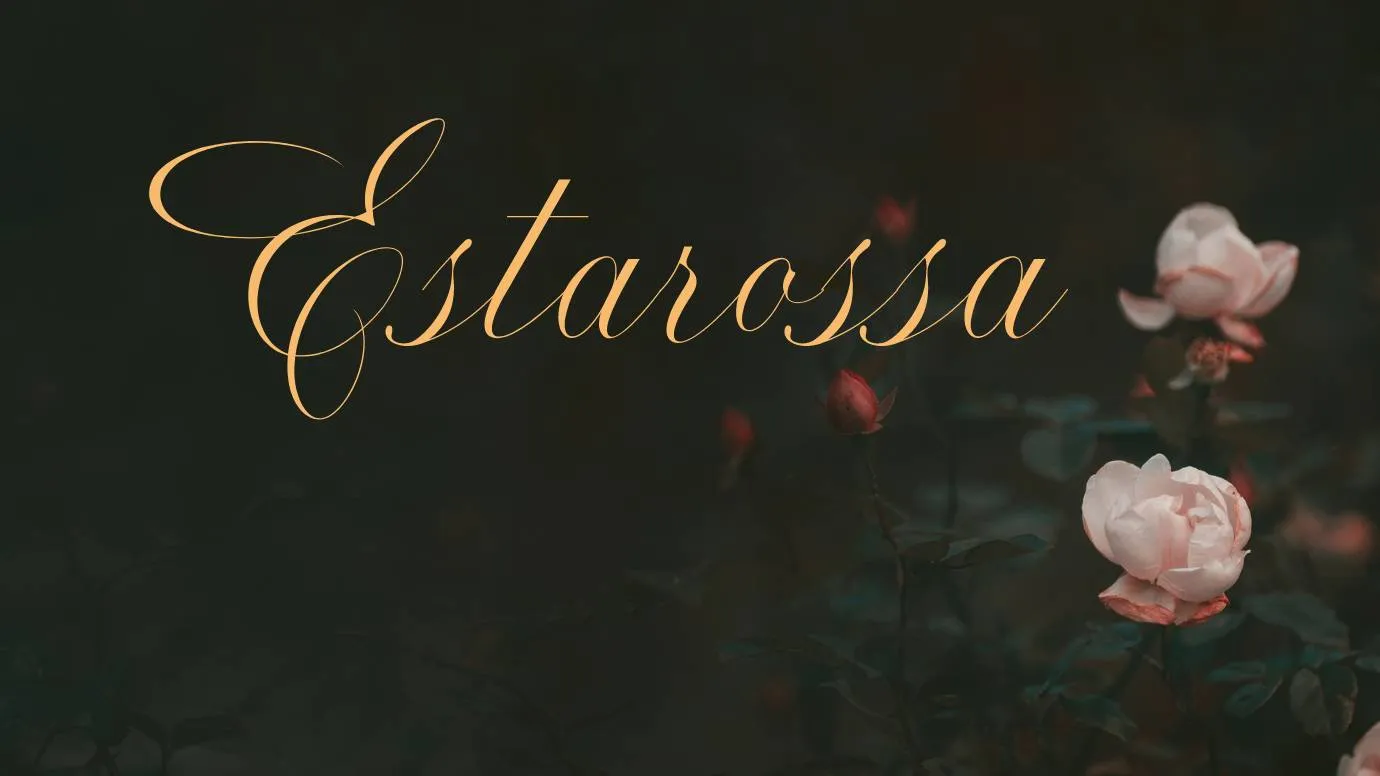
Estarossa Font Family is a modern handwritten calligraphy-type font that comes with a unique style family. Letterhend Studio is the first designer and publisher of this amazing look texture.
| Name | Estarossa Font |
| Type | Calligraphy |
| Designer | Letterhend Studio |